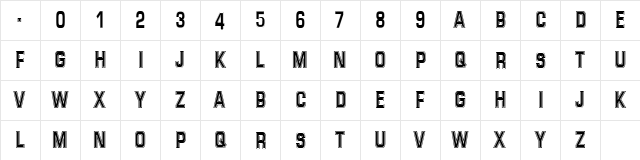
Verona FFF Regular Font Preview
Verona FFF Regular
Verona FFF Regular Font Details
Design Context for Verona FFF Typeface
Verona FFF takes a measured approach to typography — its balanced proportions and neutral character make it a reliable workhorse for both digital and print work.